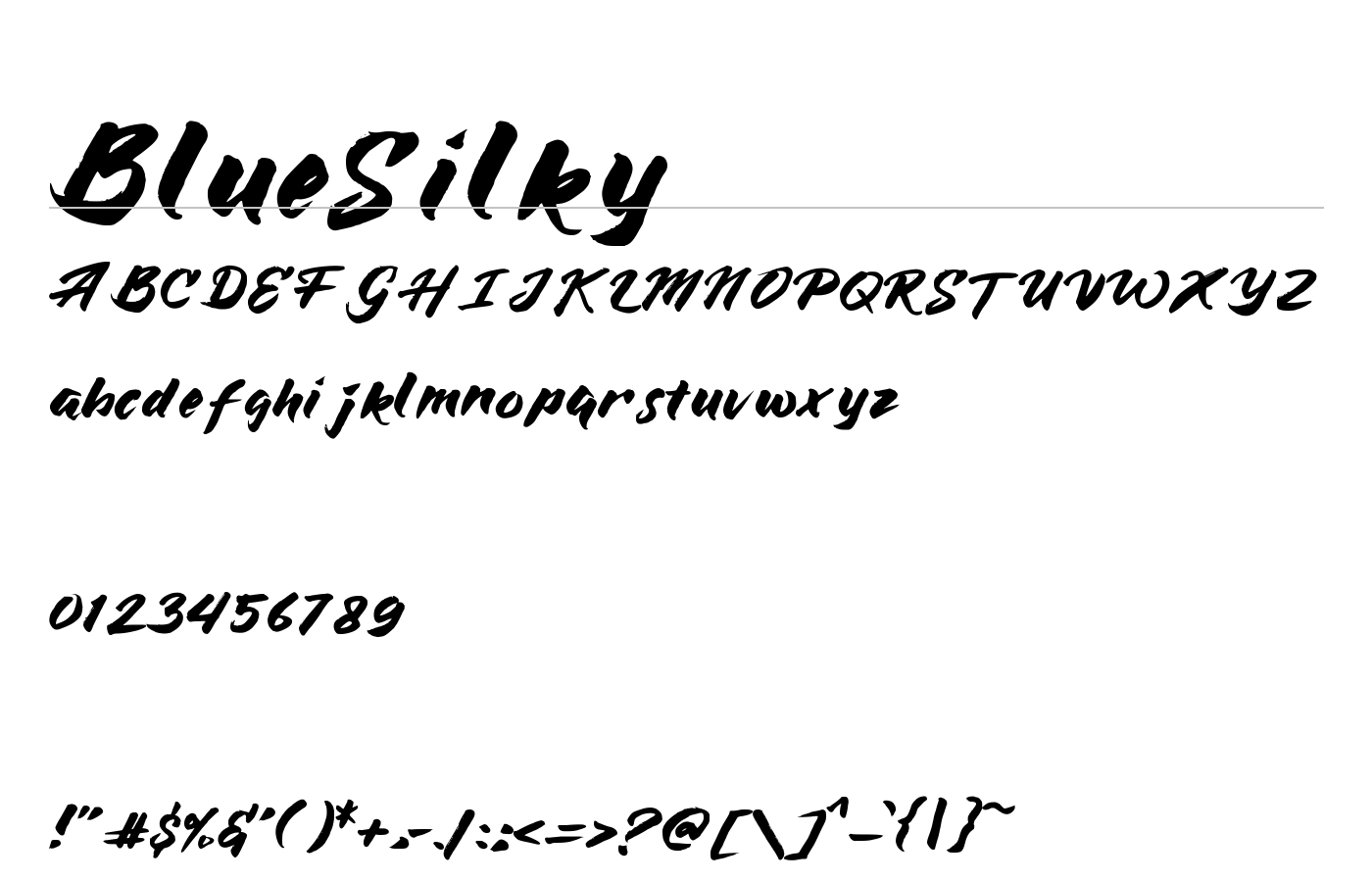
BlueSilky is a bold, brush script font with a smooth, hand-painted style that adds a dynamic and artistic touch to any design. Its fluid strokes and slightly irregular edges create an energetic yet approachable feel, making it ideal for creative branding, lively headlines, and expressive logos. This font works best where personality and movement are key, such as in fashion, lifestyle, and entertainment projects.
BlueSilky Font